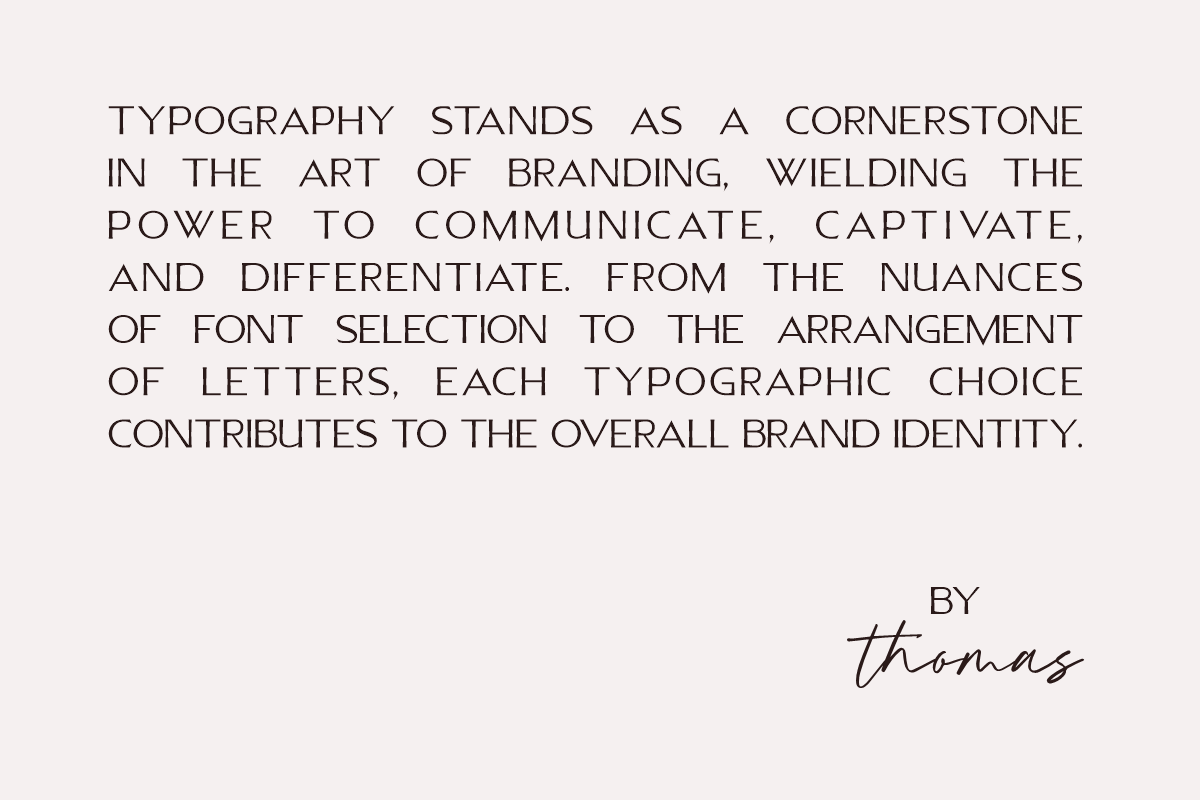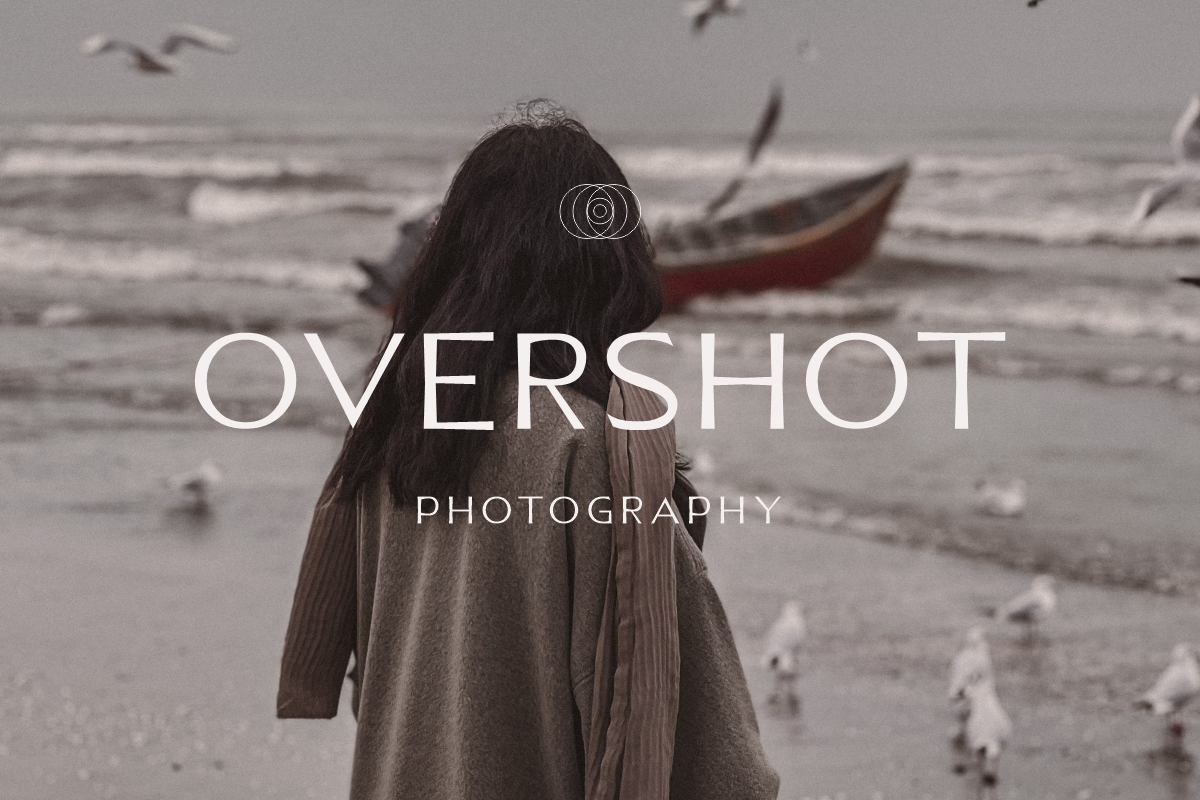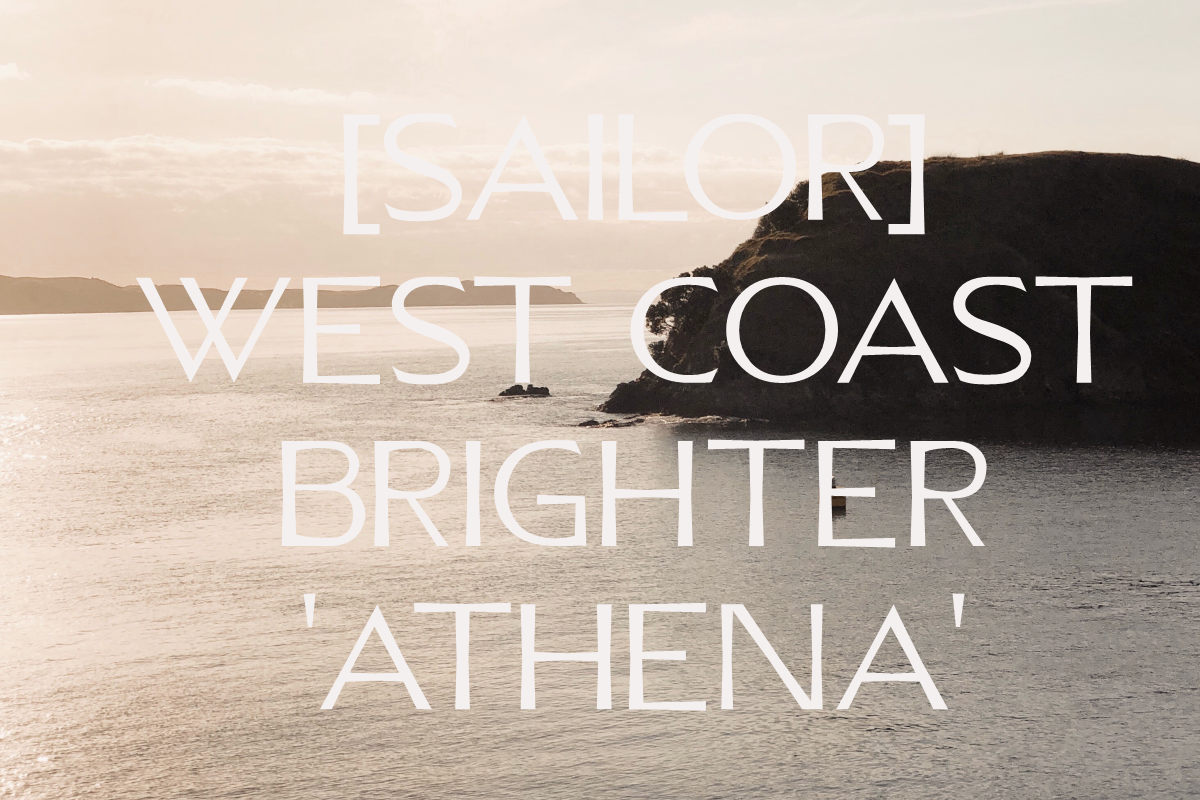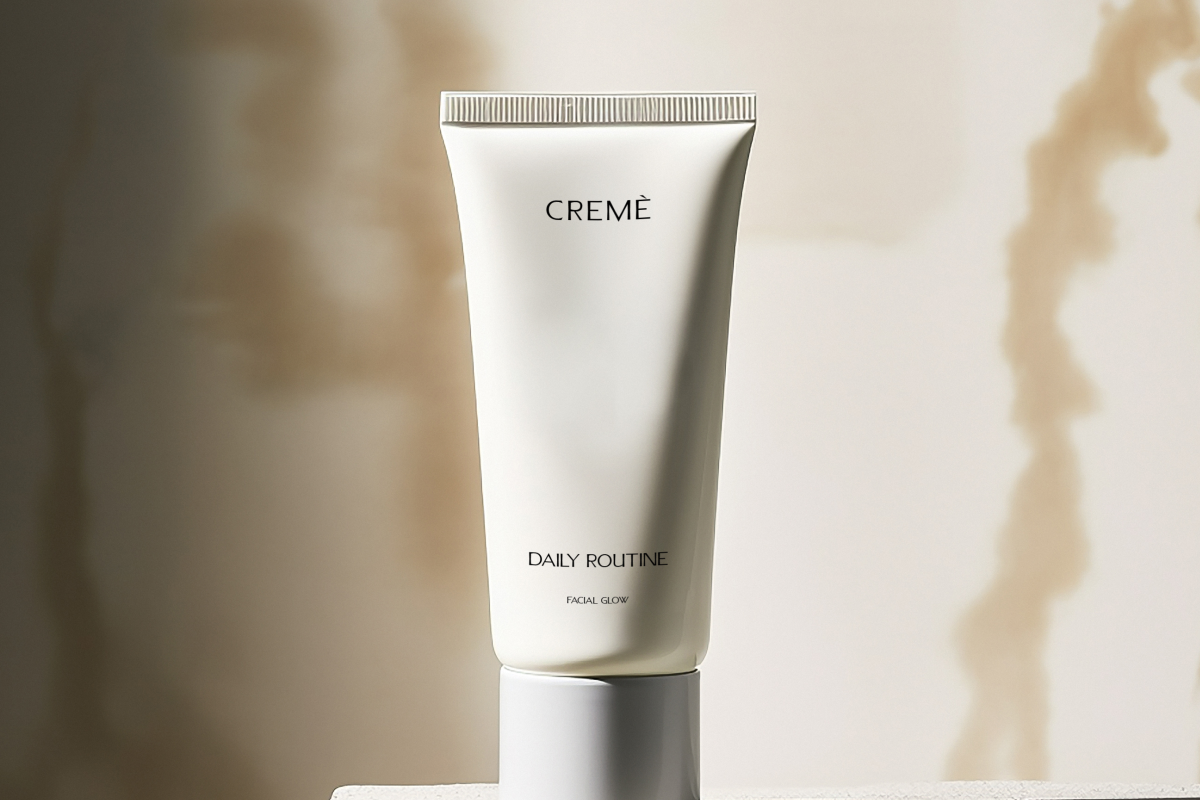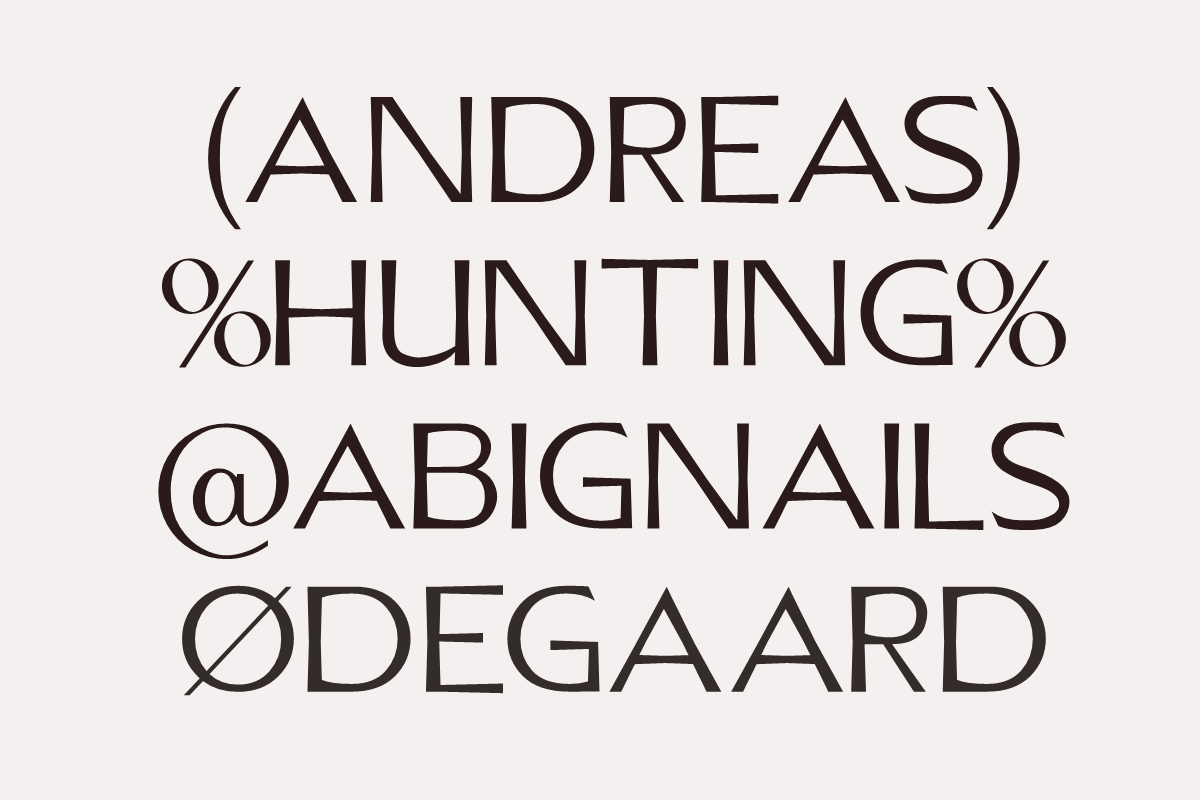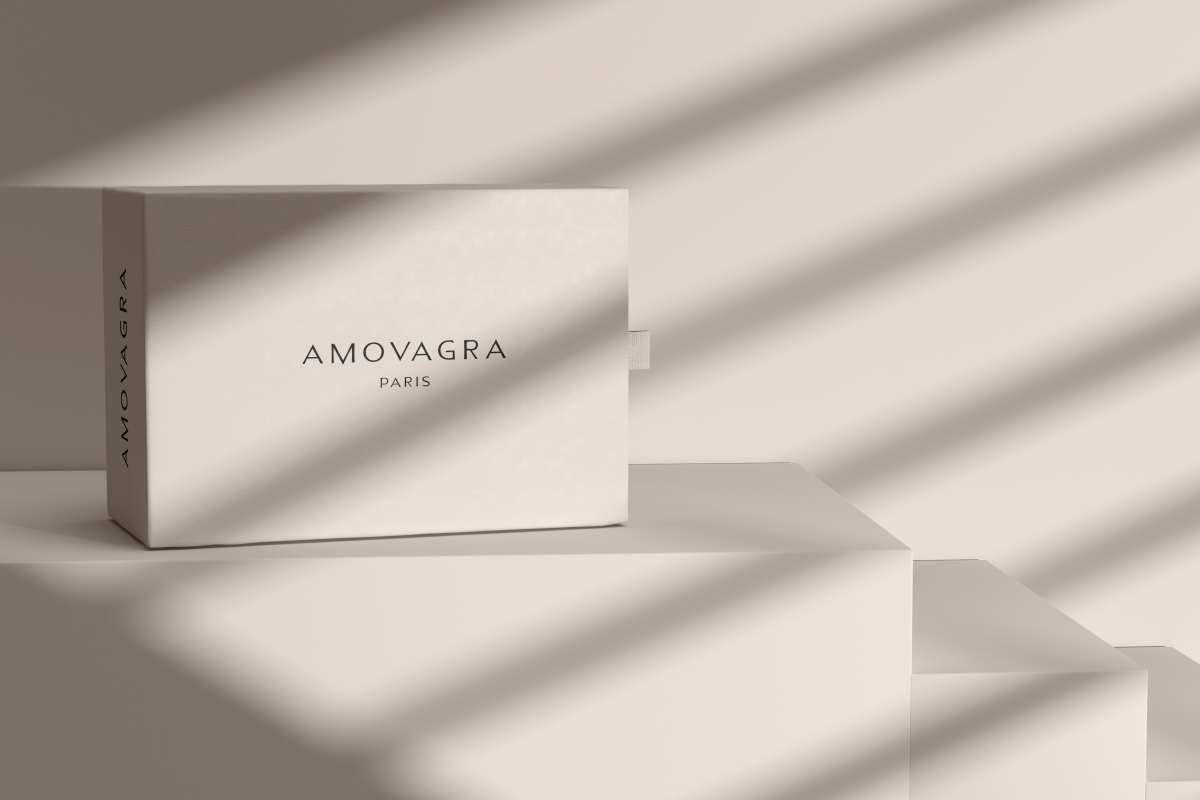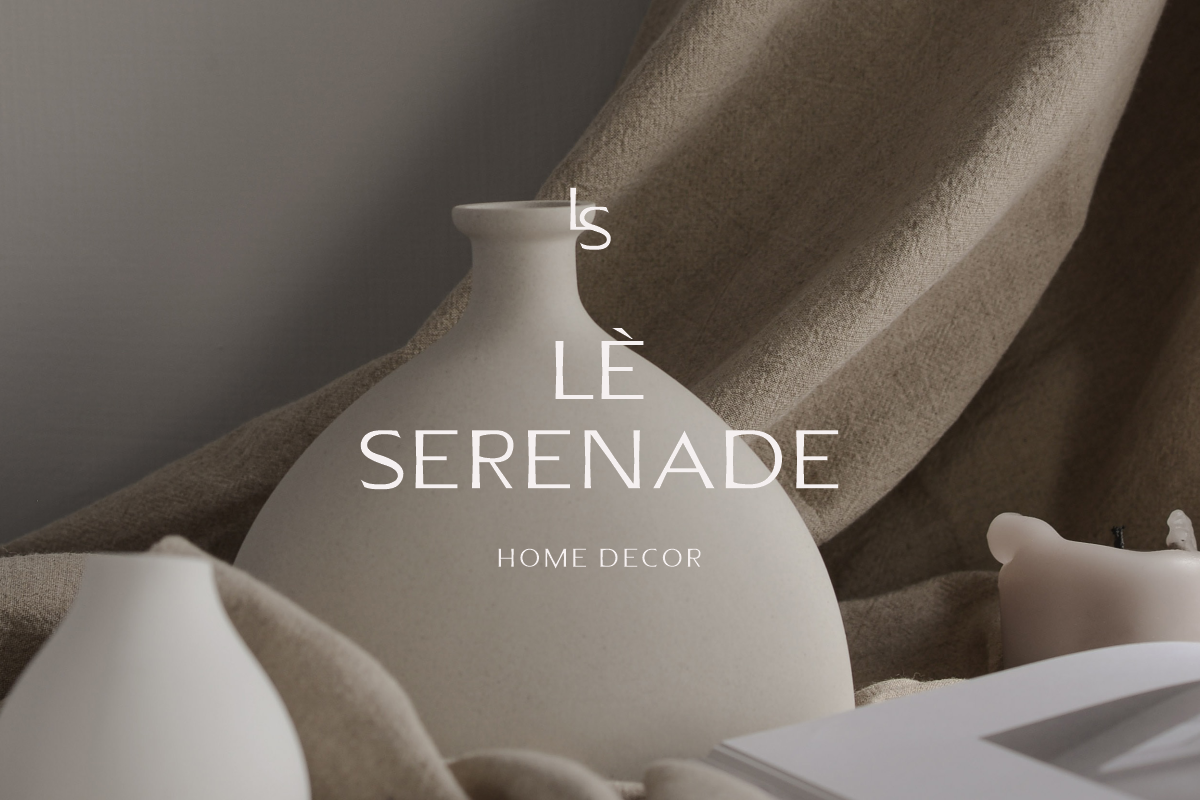
Maldives – Elegant Sans Serif
Introducing Maldives – The Epitome of Luxury and Elegant Impression in Typography. With a captivating and assertive grace, this sans-serif font exudes unparalleled beauty in all caps. Each letter is meticulously crafted to convey a potent yet unpretentious essence in every presentation.
Maldives seamlessly marries simplicity and sophistication, resulting in extraordinary visual harmony. Every contour and line of this font is meticulously designed with artistic precision, yielding characters that are both exquisite and remarkably legible across all scales. Its upright and clean writing style renders it a fitting choice for a myriad of design projects, ranging from logo creation, magazine headlines, and promotional materials, to branding elements.
The uniqueness of its all-caps attribute confers an exclusive touch to your designs. This employment of capital letters radiates strength and tranquility, delivering messages that are unequivocal and resolute.
Should you be in pursuit of a font that amalgamates opulence, elegance, and unwavering conviction into a singular entity, Maldives stands as the quintessential choice. With all its allure, this elegant sans-serif font will undoubtedly bestow a perpetual radiance upon your designs.
We invite you to embrace the essence of grandeur and finesse through Maldives – a timeless investment in the aesthetic allure of your creative endeavors.